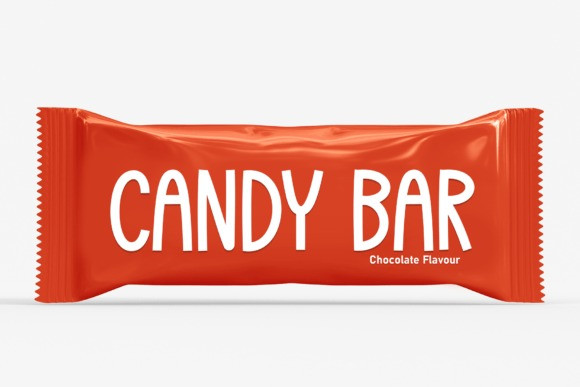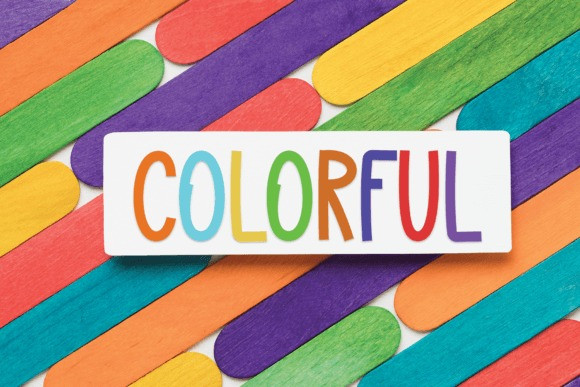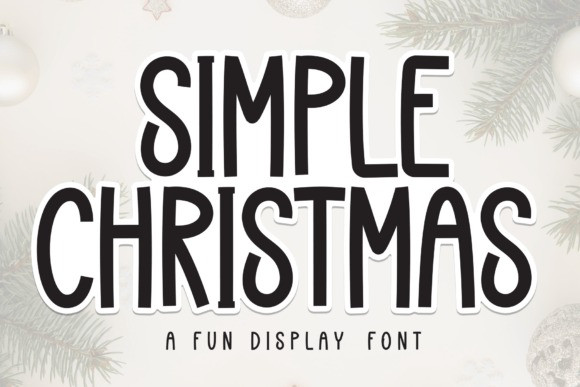
Simple Christmas Fun Font
Simple Christmas Font it’s fun, it’s cute, it’s smooth. A font with lots of combination possibilities, it makes a fun display, good for making logotypes, stickers, fun kids’ signs, and other lettering projects.